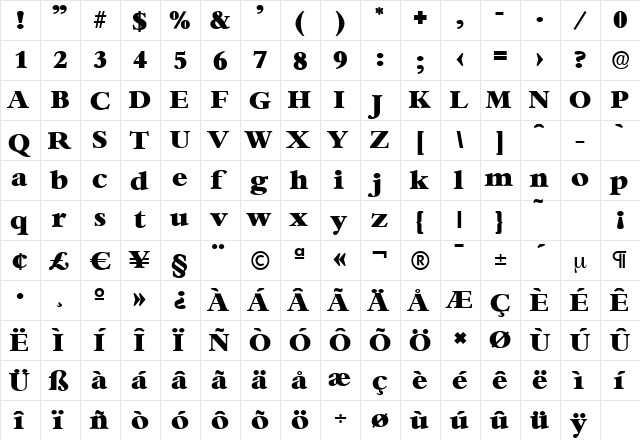
BernsteinSerial-Heavy Regular
Design Context for BernsteinSerial-Heavy Typeface
BernsteinSerial-Heavy offers clean, dependable letterforms without strong stylistic allegiance, making it a practical choice for designers who need flexibility.
Pro Tip: Use BernsteinSerial-Heavy in both headline and body roles to test its range before committing to a single application.